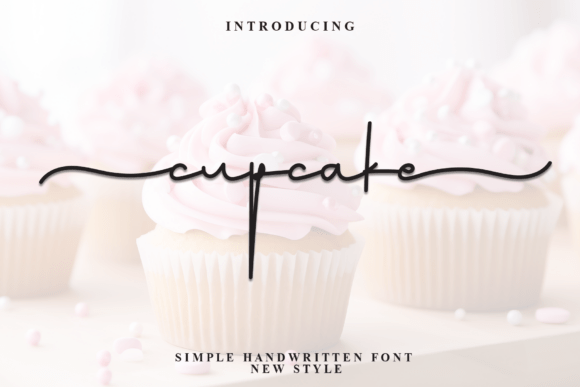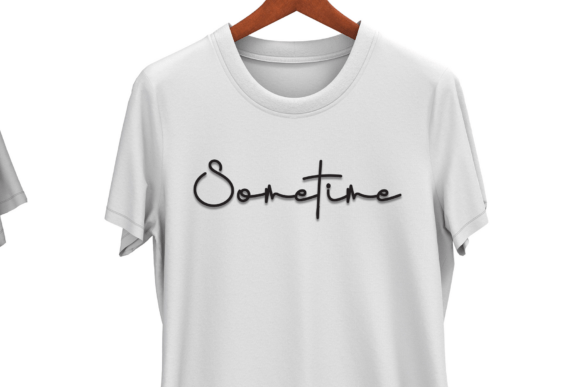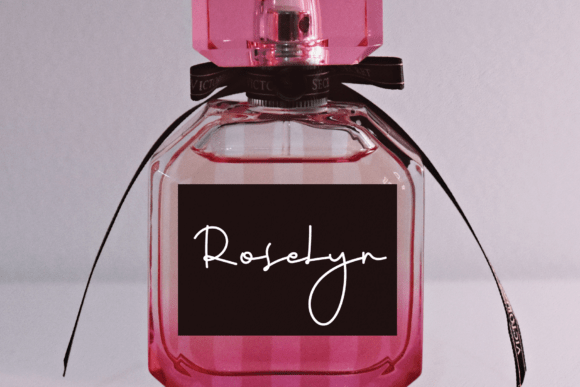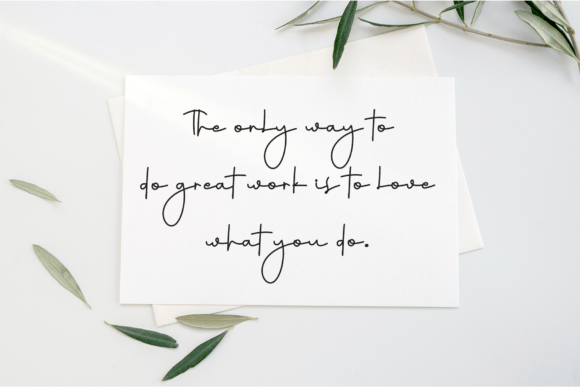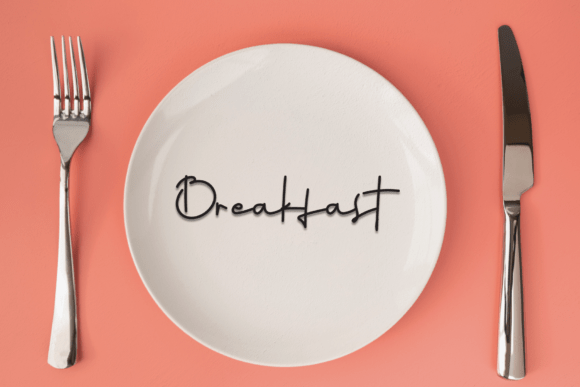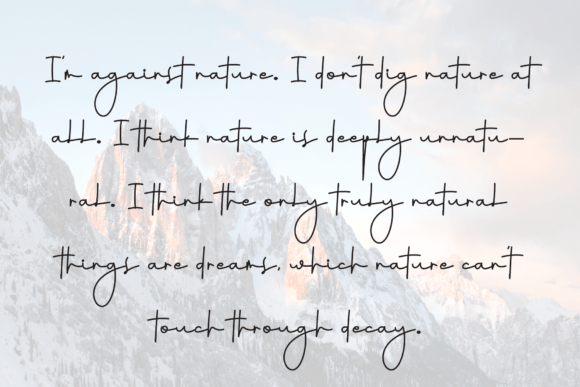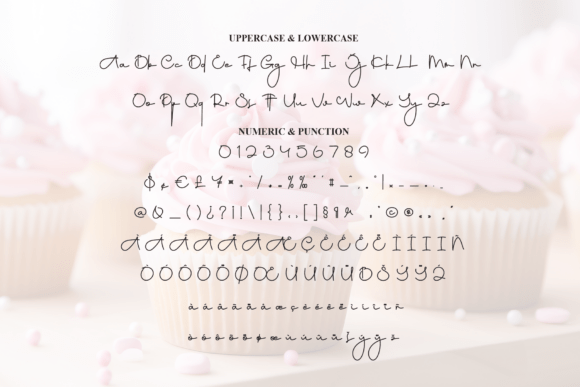
The Sweetest Touch: Discovering the Cupcake Font
As a designer, there’s nothing quite like the thrill of finding the perfect font to elevate a project. You’re pouring over typefaces, searching for that elusive combination of style and substance. And then, it happens – you stumble upon a font that makes your heart skip a beat. For me, that moment came when I discovered the Cupcake Font, a sweet and airy script that’s as delightful as it is sophisticated.
The Cupcake Font is designed to bring a sense of fresh, lighthearted charm to your creative projects. Its delicate, elongated strokes and playful swashes create a unique sense of movement across the page. With its low-profile lowercase letters and sweeping horizontal extensions, this font is a must-have for designers looking to add a touch of elegance to their work.
Cupcake Font Key Features
- Unique Characteristics: The Cupcake Font features a playful, cursive script with a whimsical touch, making it perfect for baking and food-related designs, as well as wedding invitations and other special occasions.
Cupcake Font Review
I’ve had the chance to work with Cupcake Font, and I have mixed feelings about it. Here’s what I think works well:
- ✨ Unique design: Cupcake Font has a distinctive, playful feel that’s perfect for creative projects, especially those related to food, baking, or kids.
- ✨ Customization options: The font offers a range of styles and weights, allowing you to tailor it to your specific design needs.
- ✨ Wide character set: Cupcake Font includes a comprehensive character set, including numerals, punctuation, and special characters.
- ⚠️ Limited legibility: While Cupcake Font is perfect for display text, it may struggle with body text, particularly at smaller font sizes.
- ⚠️ Not suitable for formal use: The font’s playful nature makes it unsuitable for formal or professional projects, where a more traditional font is usually preferred.
Overall, Cupcake Font is a great addition to any designer’s toolkit, but it’s essential to understand its limitations and use it accordingly. With its unique design and customization options, it’s perfect for creative projects that require a touch of whimsy. However, it’s not a one-size-fits-all solution, and you should consider its limitations before using it for more formal or complex designs.